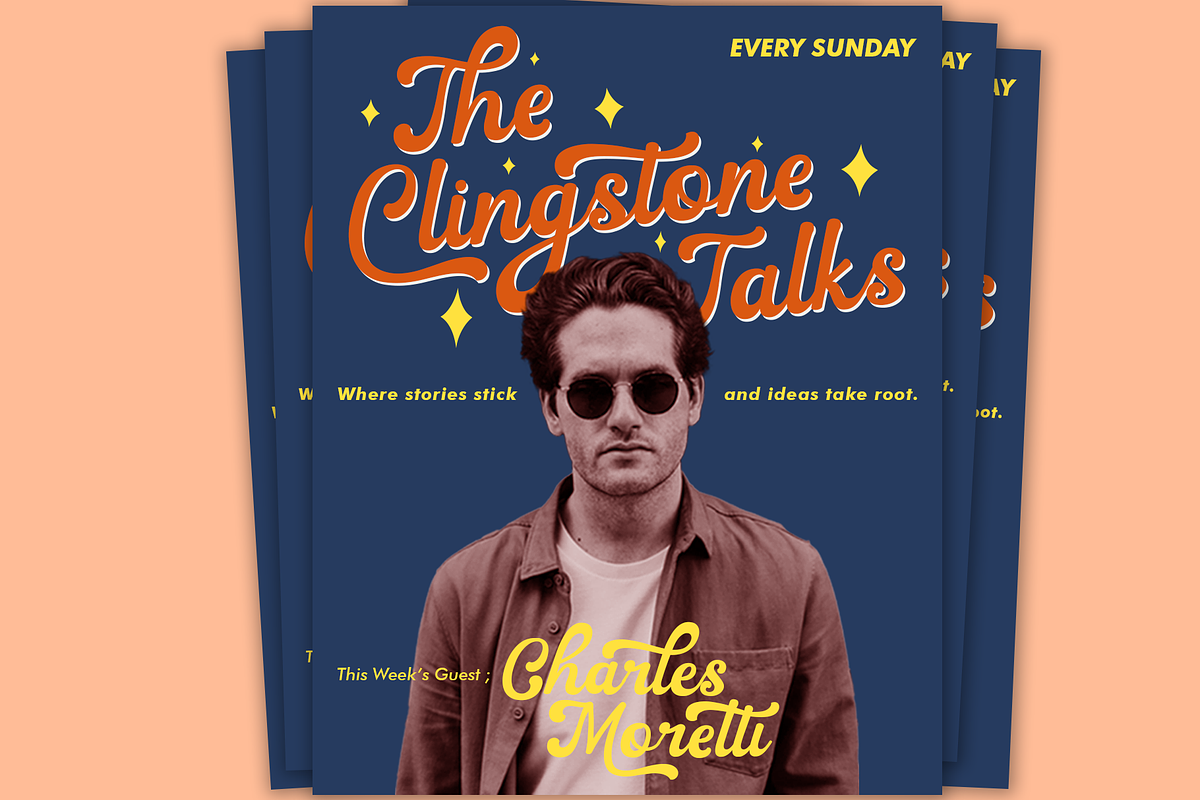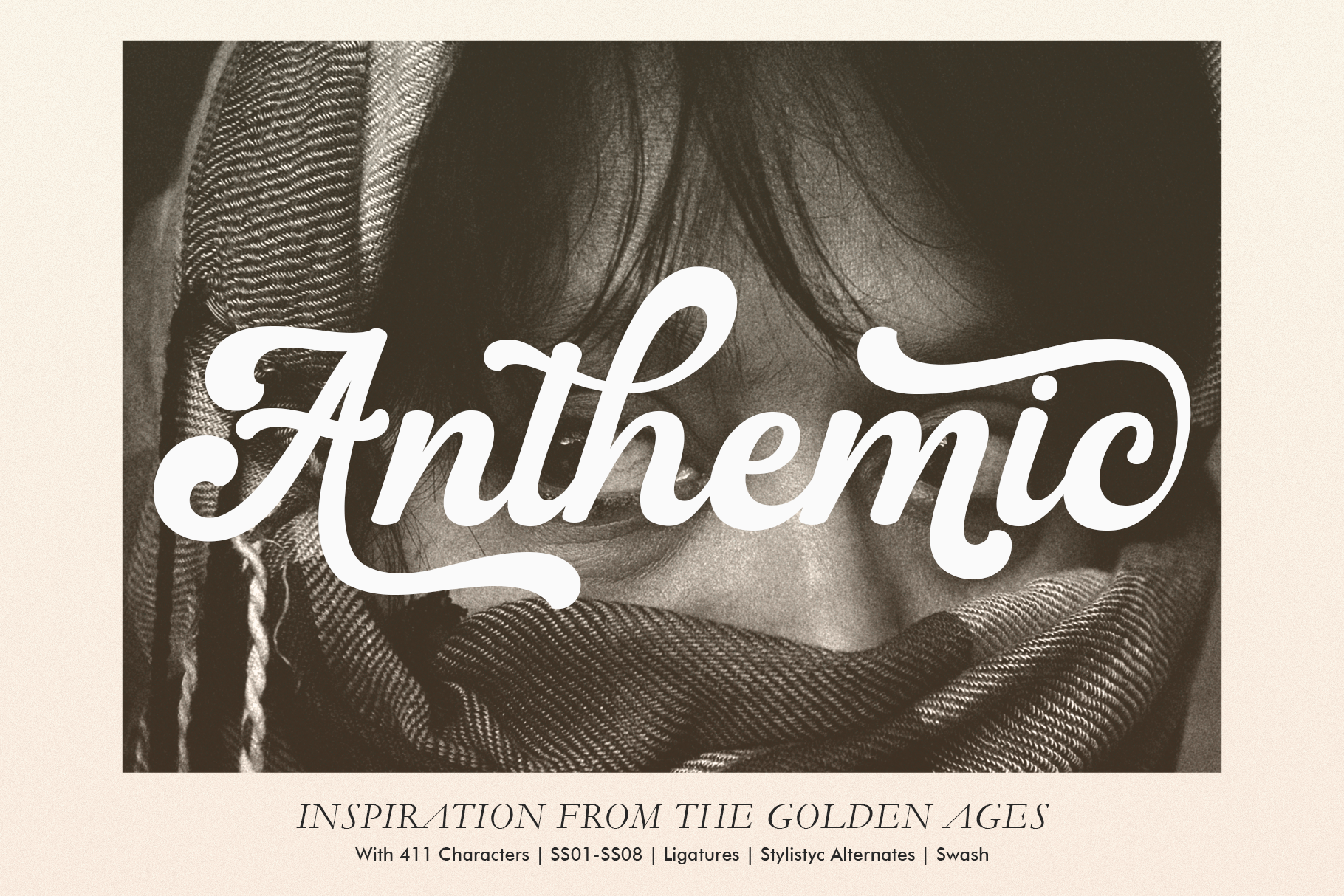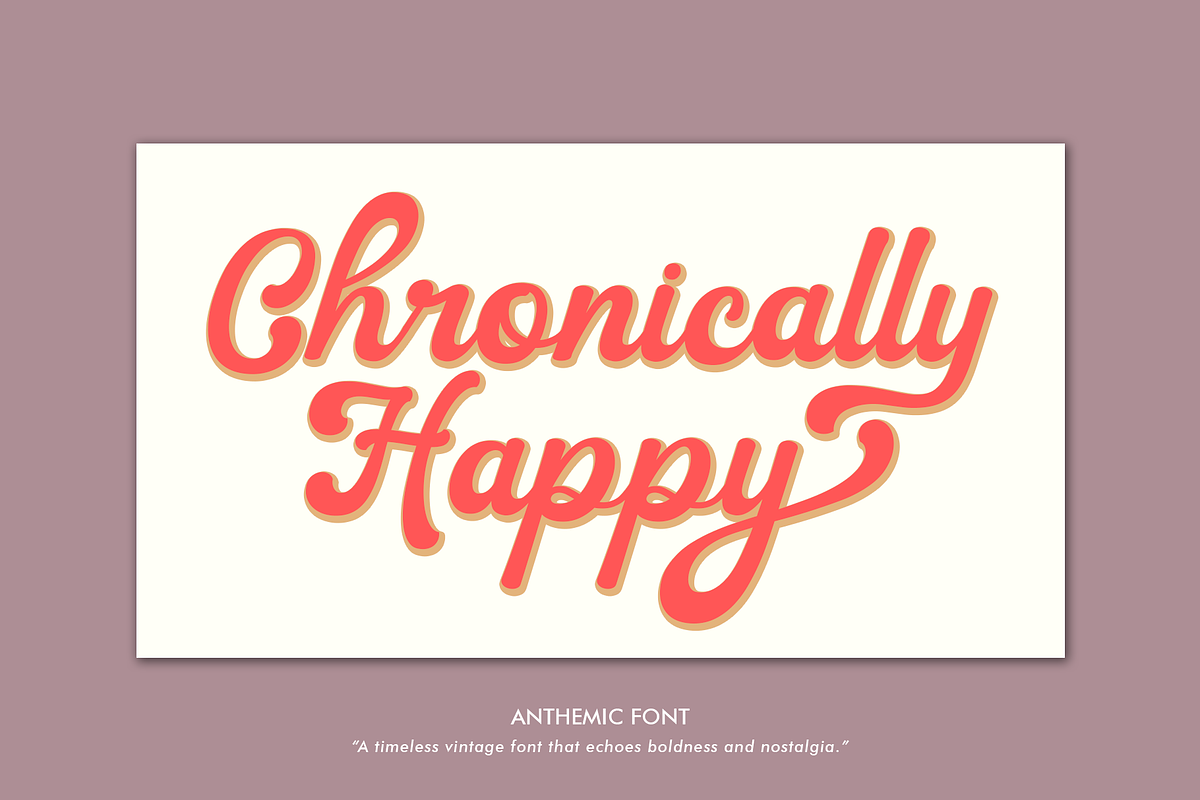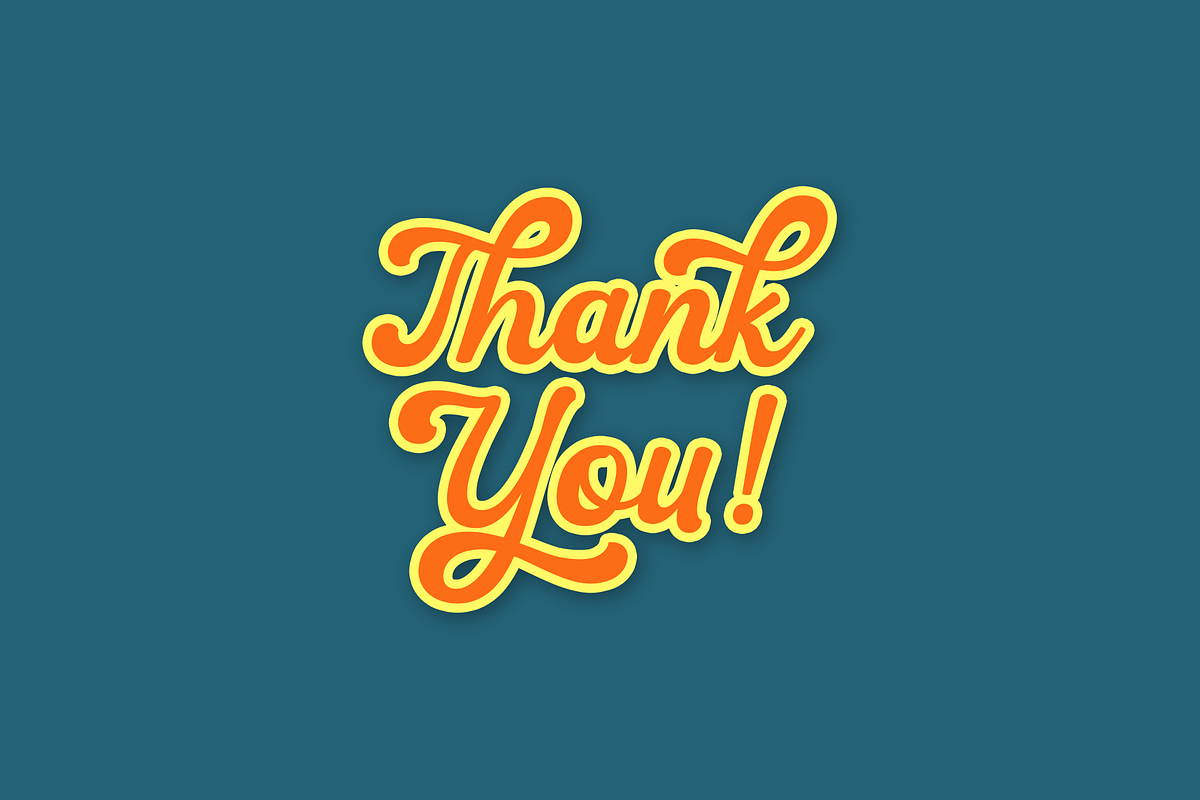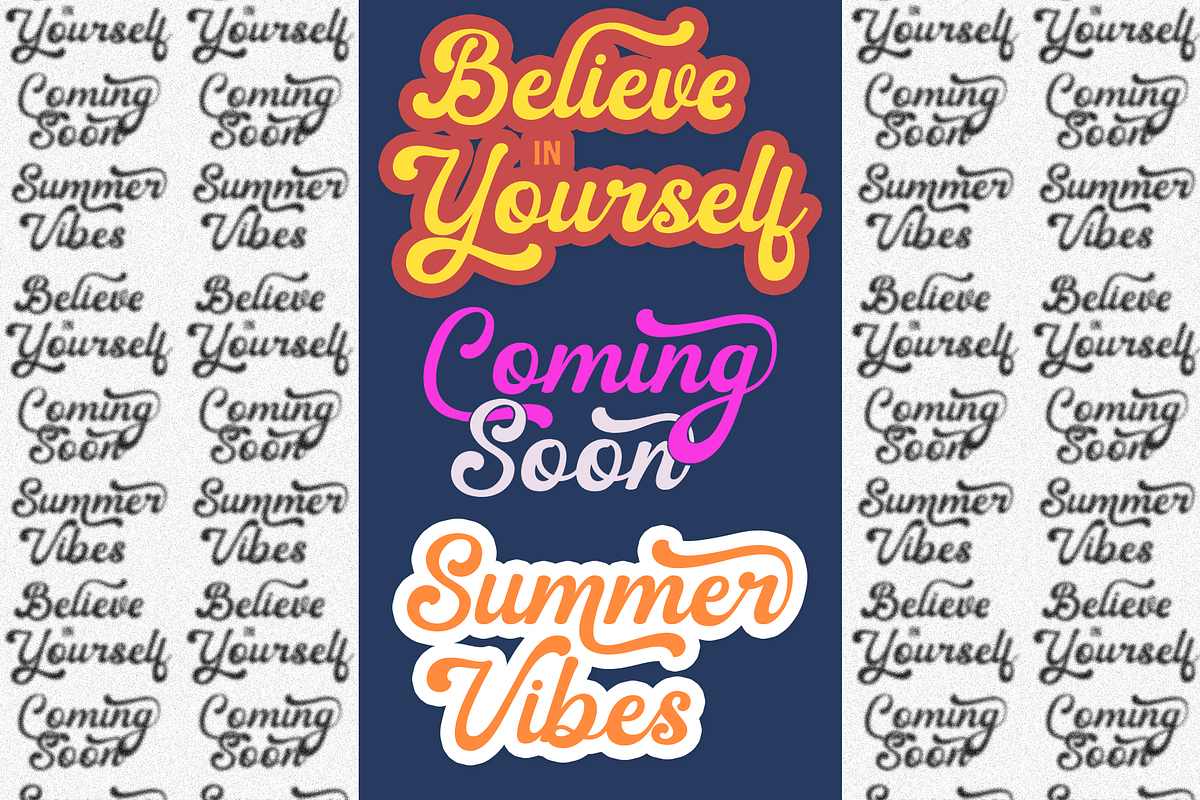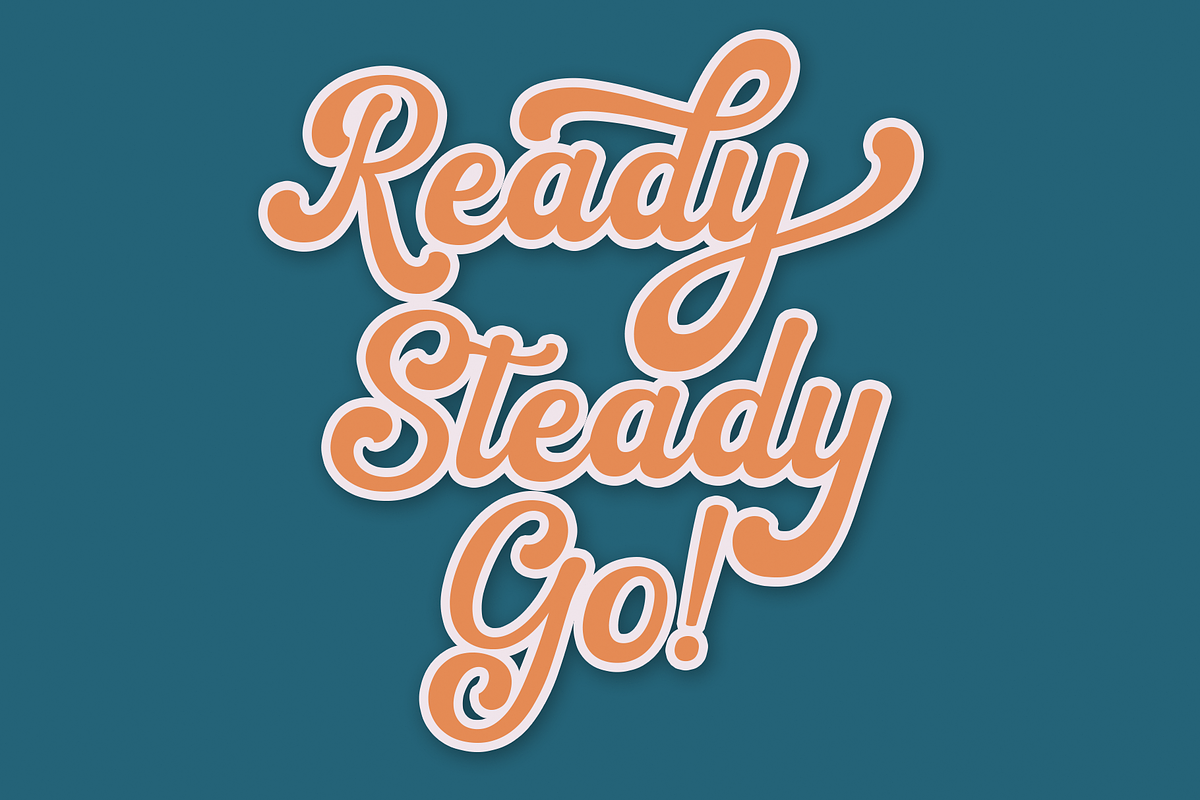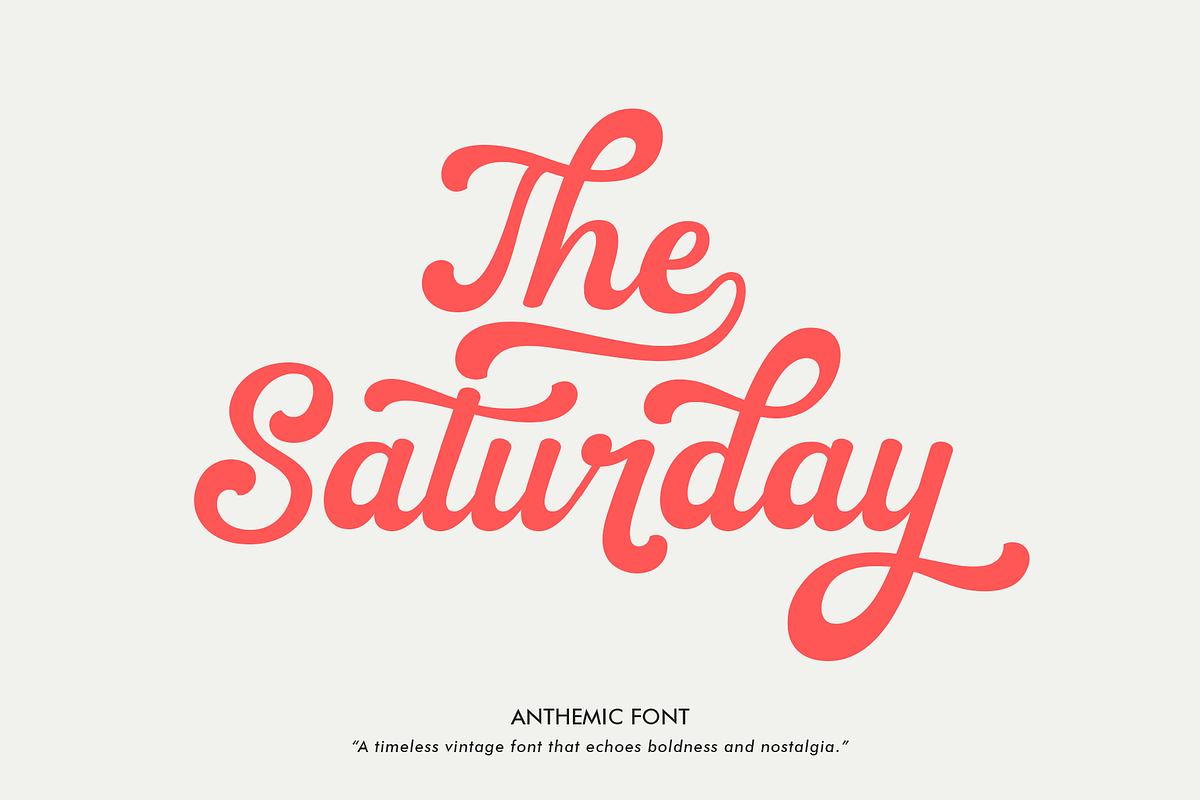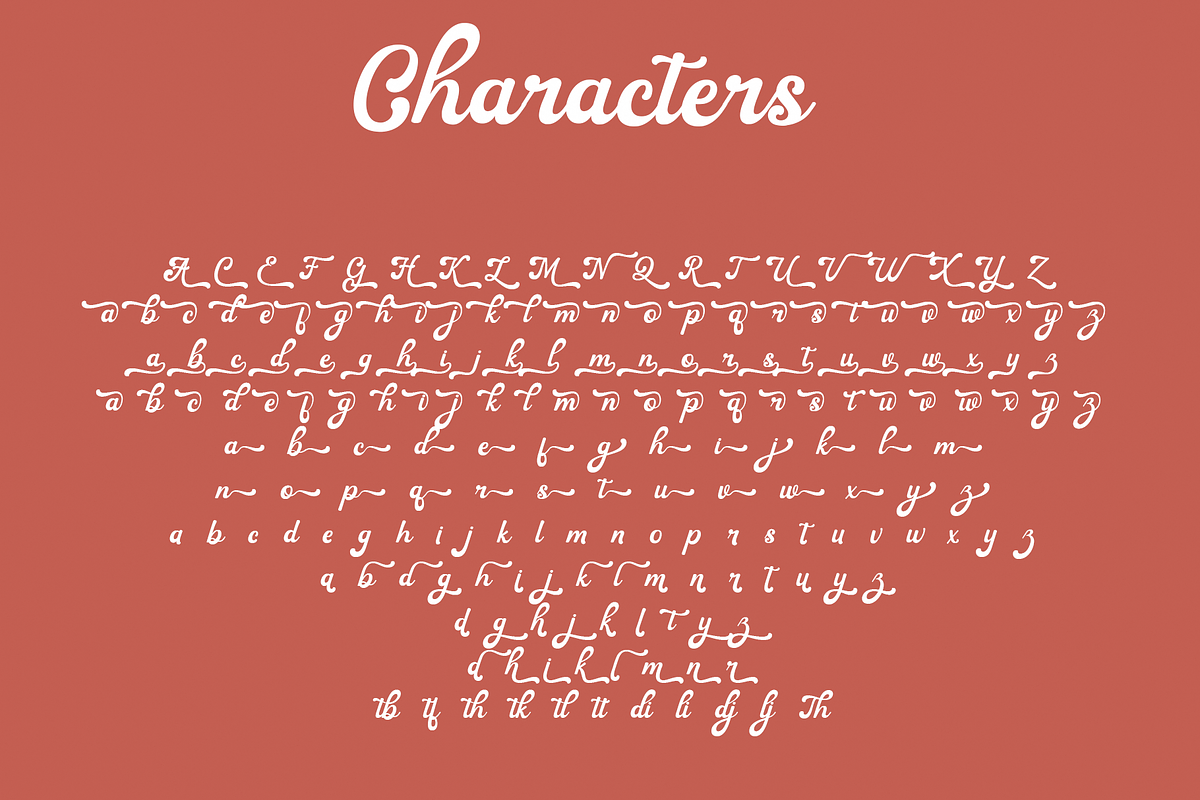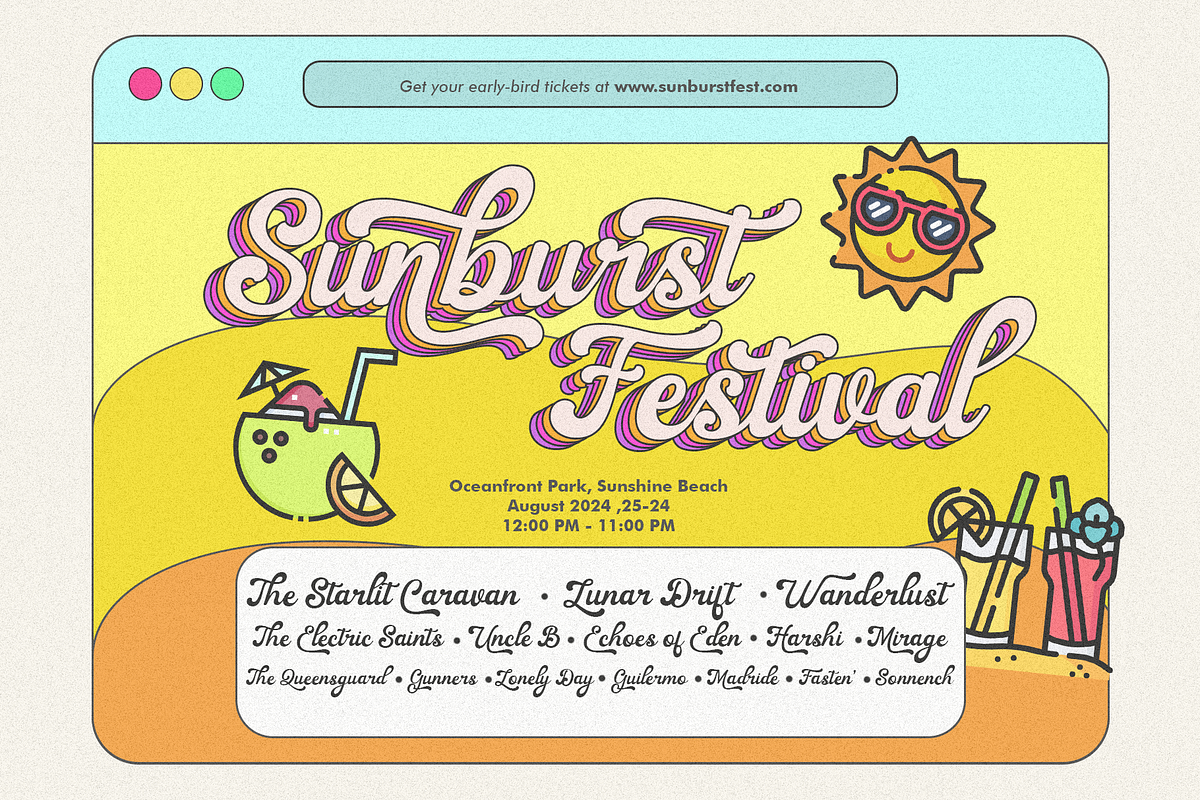
Anthemic! Bold Retro Font!
Arthemic is a vintage-inspired typeface that blends the charm of old-school aesthetics with the dynamic energy of classic baseball fonts. This versatile font comes with a comprehensive set of 411 characters, providing an extensive range of design possibilities. With features like ss01-ss08, stylistic alternates, ligatures, swashes, and PUA encoding, Arthemic offers an exceptional level of customization, making it an ideal choice for designers who seek a unique and nostalgic touch in their work.
The fluid curves and bold strokes of Arthemic evoke a sense of retro Americana, making it perfect for a variety of design applications. Whether you're working on sports team branding, vintage-inspired logos, or nostalgic packaging, Arthemic delivers a timeless look with a modern twist.
- Sports team logos and branding
- Vintage apparel designs
- Retro-inspired posters and flyers
- Custom baseball merchandise
- Classic packaging designs
- Signage and storefront displays
- Event invitations with a nostalgic theme
- Typography-focused editorial design
- Retro-themed websites and digital graphics
- Branding projects that require a touch of old-school charm